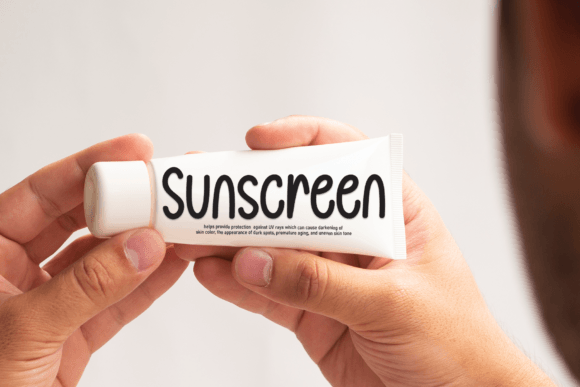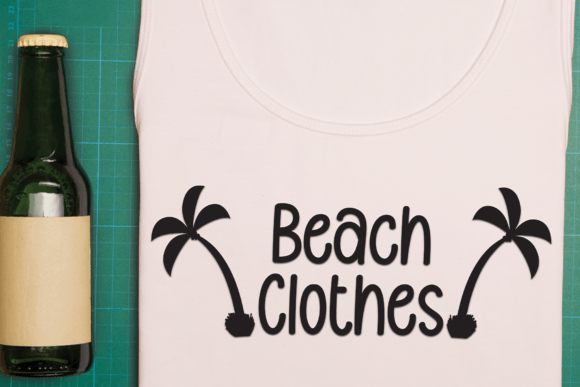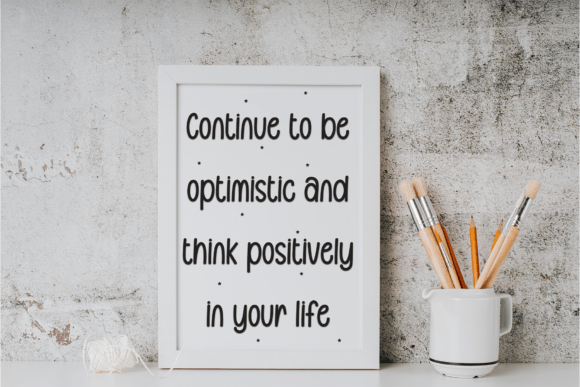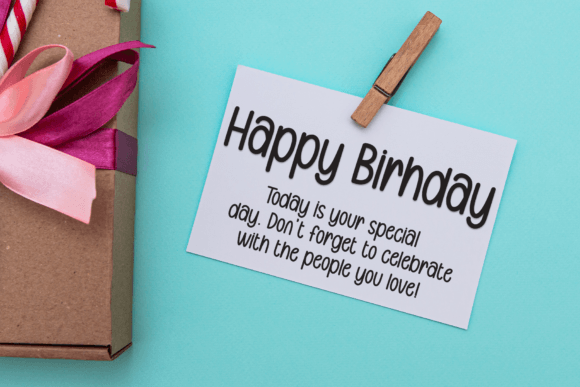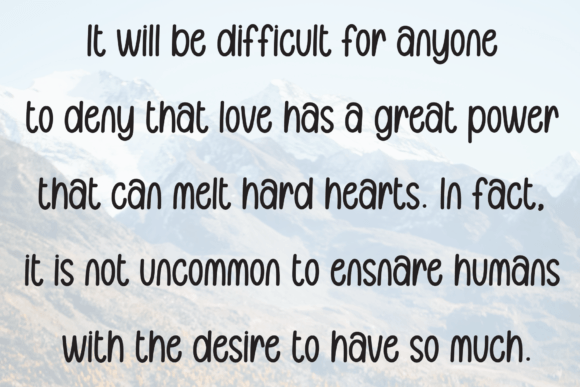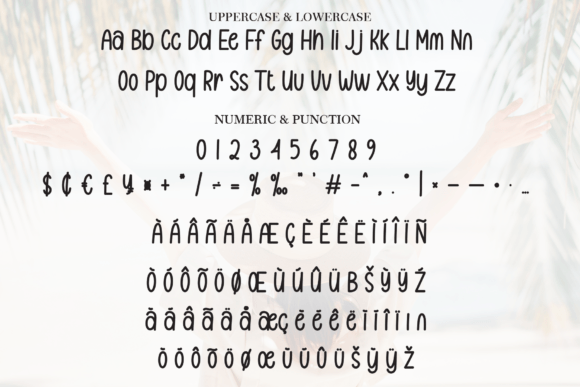
Introducing Happy Summer: The Sweet and Friendly Handwritten Display Font
Are you looking for a font that can add a fun and playful touch to your designs? Look no further than Happy Summer, a sweet and friendly handwritten display font that’s perfect for a variety of creative projects. In this article, we’ll take a closer look at Happy Summer and explore its features, uses, and benefits for designers and crafters.
What is Happy Summer Font?
Happy Summer is a beautiful handwritten display font that’s designed to bring a smile to your face. Its sweet and friendly style makes it ideal for writing wedding invitations, cards, or any other design that might need a fun touch. The font is carefully crafted to look like it’s written by hand, with subtle imperfections and variations that give it a personal and approachable feel.
Key Features of Happy Summer Font
- Cute and Fun: Happy Summer is a font that’s designed to be playful and fun. Its bouncy and irregular style makes it perfect for designs that need a lighthearted touch.
- Handwritten Style: The font has a beautiful handwritten style that’s perfect for creating personal and approachable designs.
- Display Font: Happy Summer is a display font that’s designed to make a statement. It’s perfect for headlines, titles, and other design elements that need to stand out.
- Versatile: The font is versatile and can be used for a variety of design projects, from wedding invitations to social media graphics.
Uses of Happy Summer Font
Happy Summer is a versatile font that can be used for a wide range of design projects. Here are some ideas to get you started:
- Wedding Invitations: The font’s sweet and romantic style makes it perfect for writing wedding invitations, save-the-date cards, and other wedding-related designs.
- Cards and Stationery: Happy Summer is ideal for creating fun and playful cards, stationery, and other paper crafts.
- Social Media Graphics: The font’s bold and playful style makes it perfect for creating social media graphics, such as Facebook posts, Instagram stories, and Twitter headers.
- Signs and Posters: Happy Summer can be used to create eye-catching signs and posters for events, promotions, and other marketing campaigns.
Benefits of Using Happy Summer Font
There are many benefits to using Happy Summer in your designs. Here are a few:
- Unique and Creative: Happy Summer is a unique and creative font that can help your designs stand out from the crowd.
- Easy to Read: The font is easy to read, even at small sizes, making it perfect for designs that need to communicate a message.
- Customizable: Happy Summer can be customized to fit your design needs. You can adjust the size, color, and style to create a look that’s all your own.
- Time-Saving: The font is a time-saving solution for designers and crafters who need to create high-quality designs quickly.
Tips for Using Happy Summer Font
Here are a few tips for using Happy Summer in your designs:
- Pair it with Other Fonts: Happy Summer can be paired with other fonts to create a unique and interesting design. Try pairing it with a bold sans-serif font for a fun and playful look.
- Experiment with Colors: The font looks great in a variety of colors. Experiment with different colors and combinations to find the one that works best for your design.
- Use it for Headlines: Happy Summer is perfect for headlines and titles. Use it to create eye-catching design elements that draw attention to your message.
Happy Summer is a sweet and friendly handwritten display font that’s perfect for designers and crafters who need to add a fun touch to their designs. Its cute and playful style makes it ideal for wedding invitations, cards, social media graphics, and other design projects. With its versatility, customizability, and ease of use, Happy Summer is a font that’s sure to become a favorite in your design arsenal.